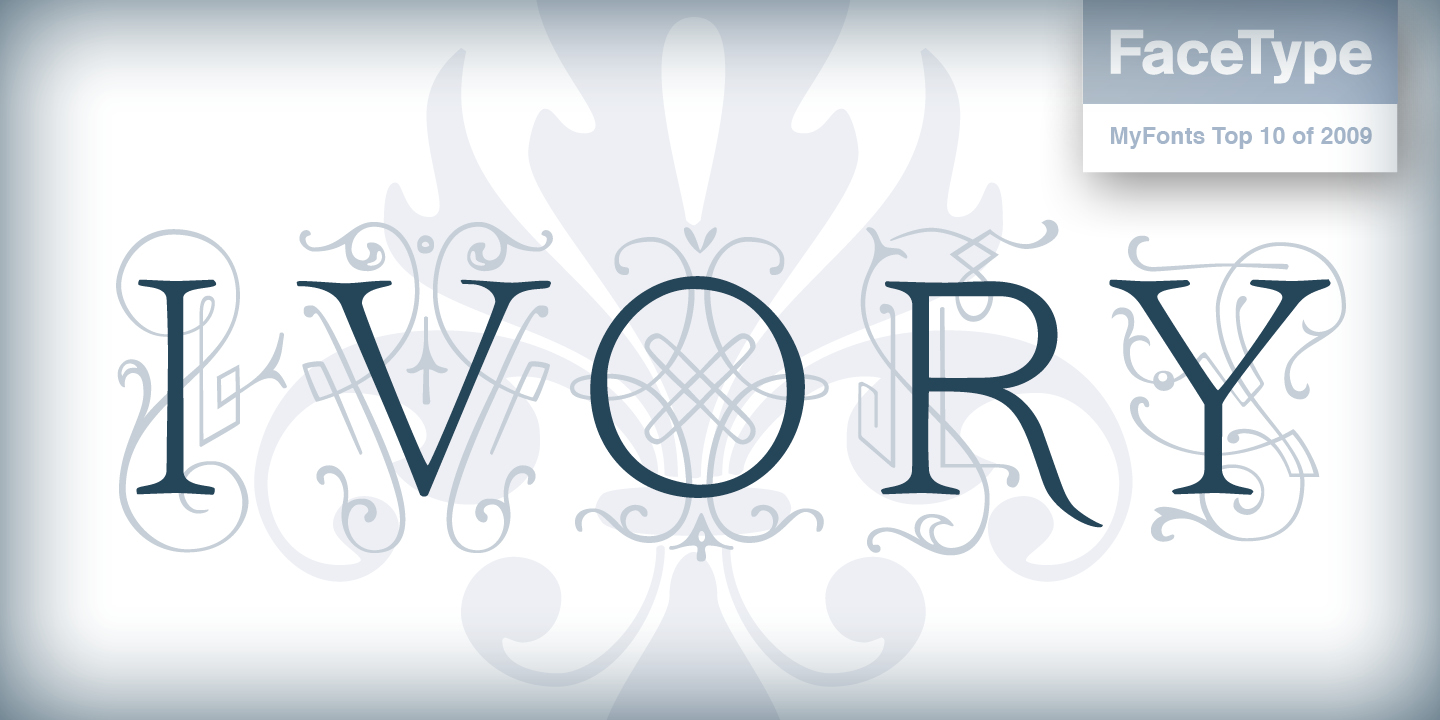
Ivory Font is perfect for luxury bridal stationery, elegant antique shop signage, premium jewelry packaging, sophisticated piano recital programs, classic museum exhibition materials, refined art gallery labels, vintage wedding invitations, and distinguished design projects that require refined typography with ivory elegance character and timeless luxury sophistication.
This Ivory Font is exciting because it captures the pristine beauty and refined elegance of ivory with smooth, polished letterforms that convey luxury and classical refinement, featuring graceful character construction that reflects the precious nature of ivory craftsmanship while maintaining exceptional readability for premium applications and elegant communications.
The Ivory Font family includes refined weights with classical styling, complete character sets with elegant uppercase and lowercase letters, luxury numerals, graceful punctuation, and precious symbols that provide comprehensive typography solutions for luxury and classical design projects requiring authentic ivory aesthetics and refined appeal.
Perfect for creating distinguished luxury communications and elegant classical brand identities, Ivory Font Free Download delivers the refined typography that transforms text into beautiful expressions of ivory elegance and classical luxury. This distinctive typeface embodies the essence of precious craftsmanship and timeless refinement, making it essential for projects celebrating classical beauty, luxury elegance, refined aesthetics, and any design requiring sophisticated character with authentic ivory sophistication and timeless classical appeal that represents the pinnacle of elegant taste and refined luxury.